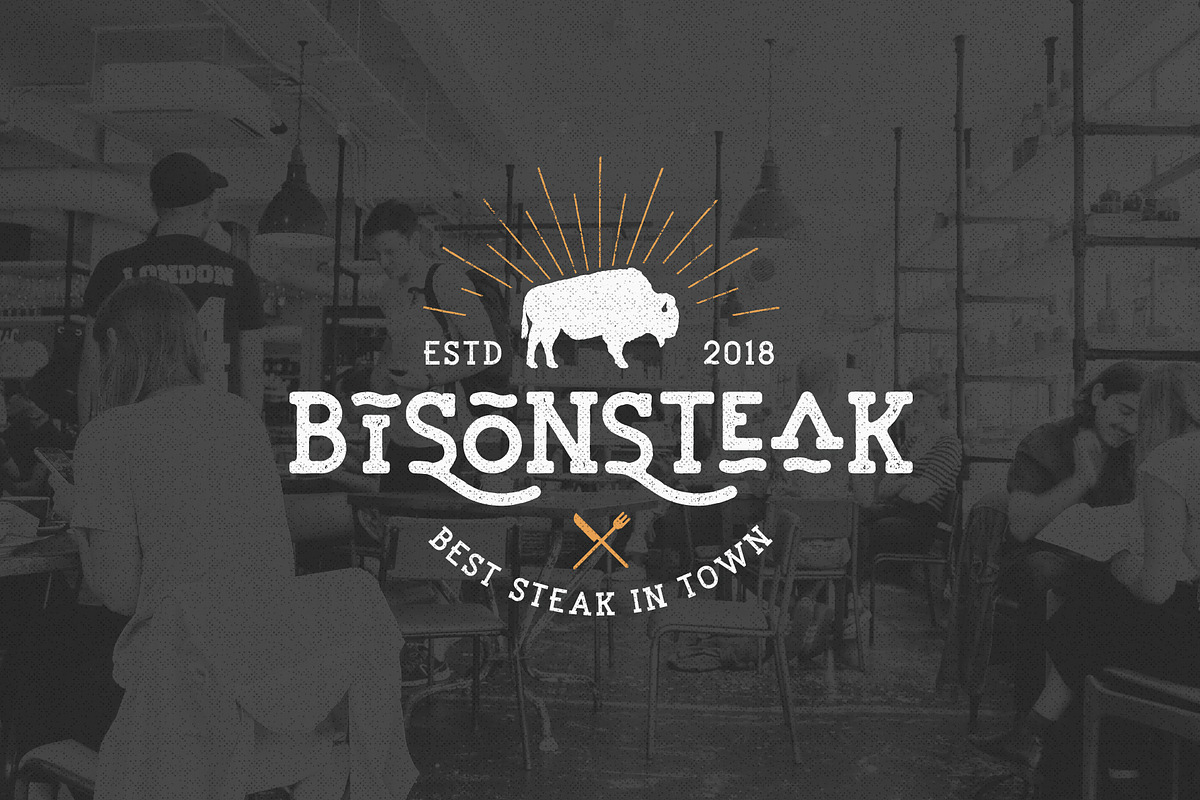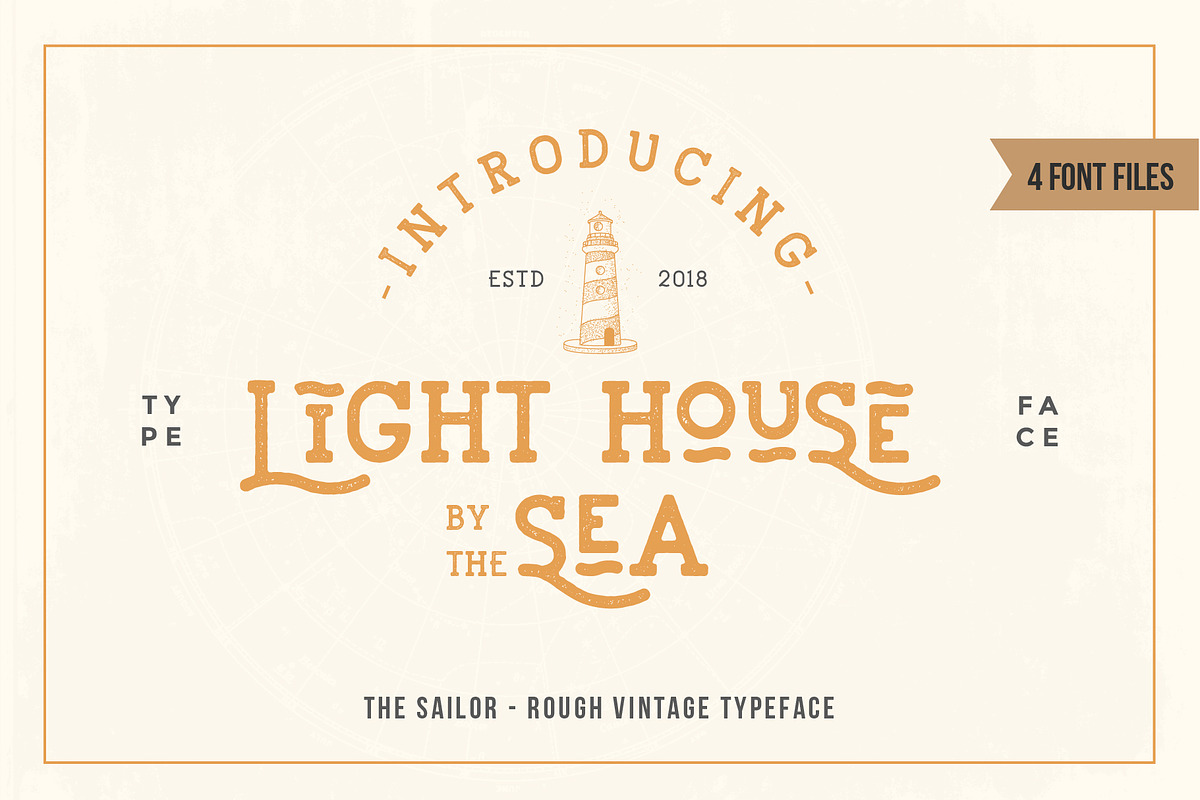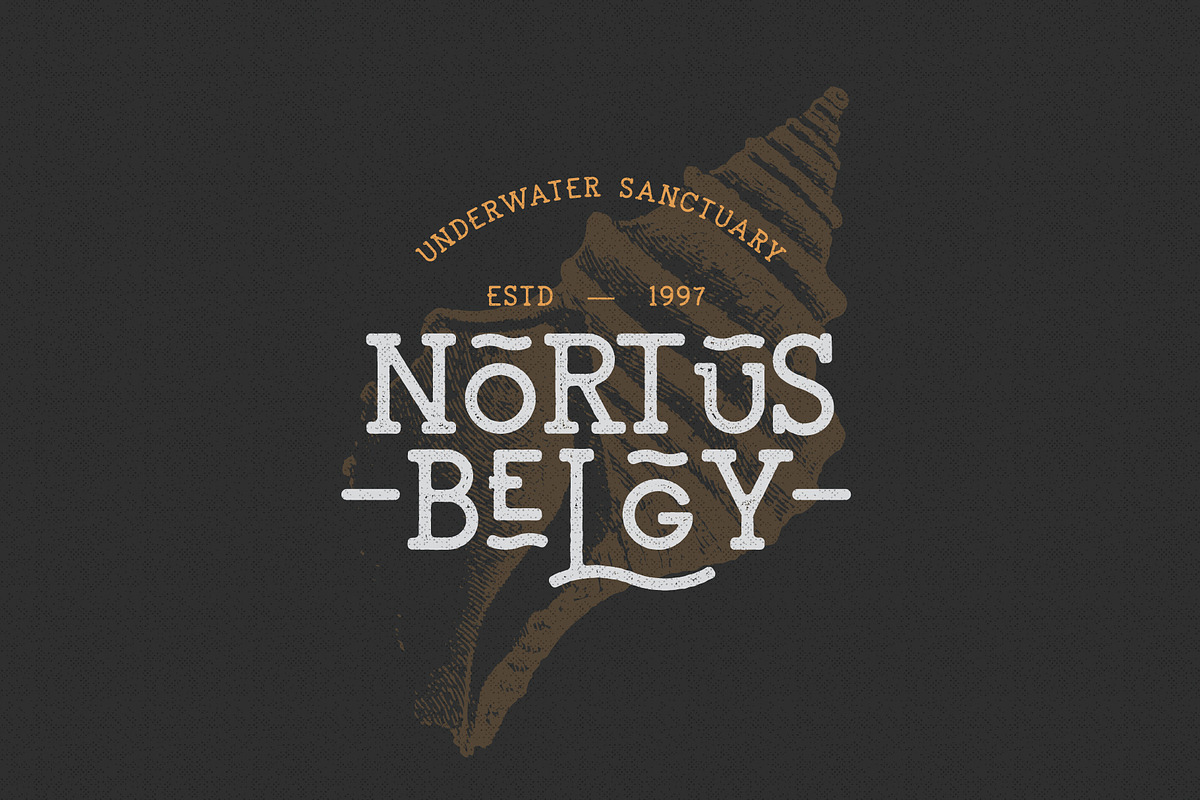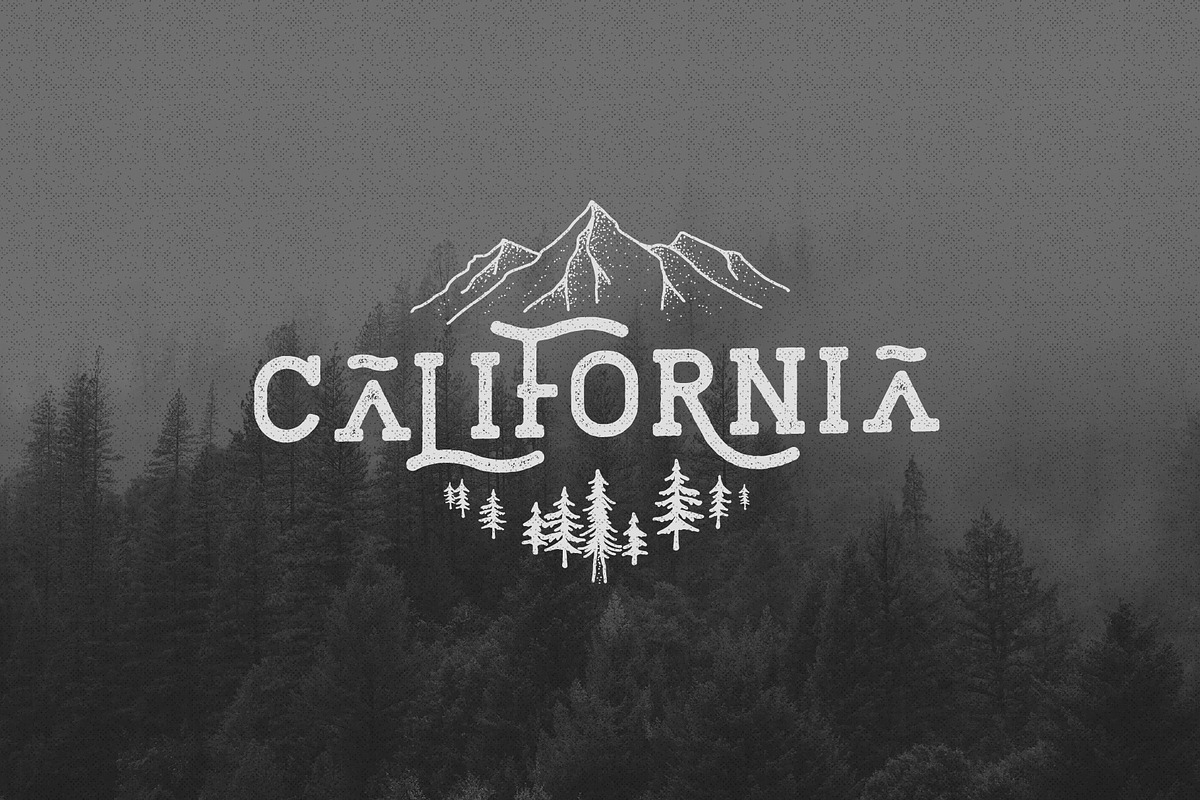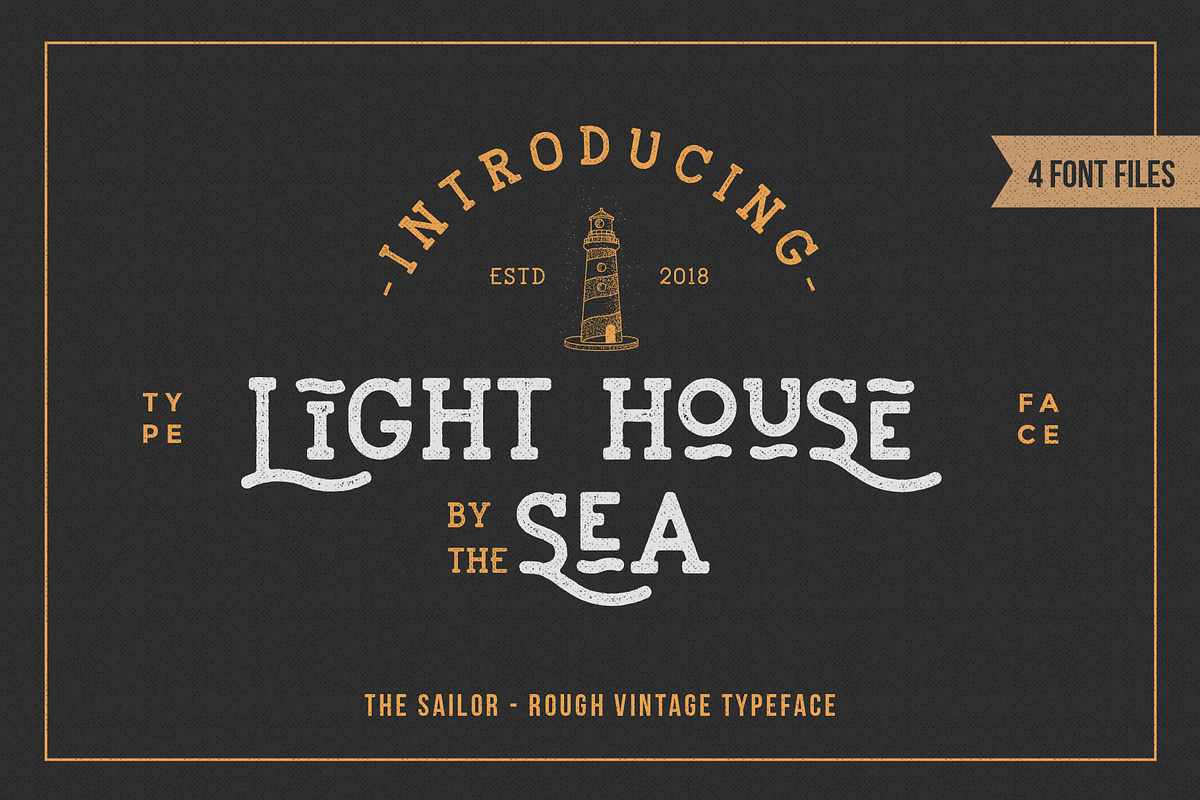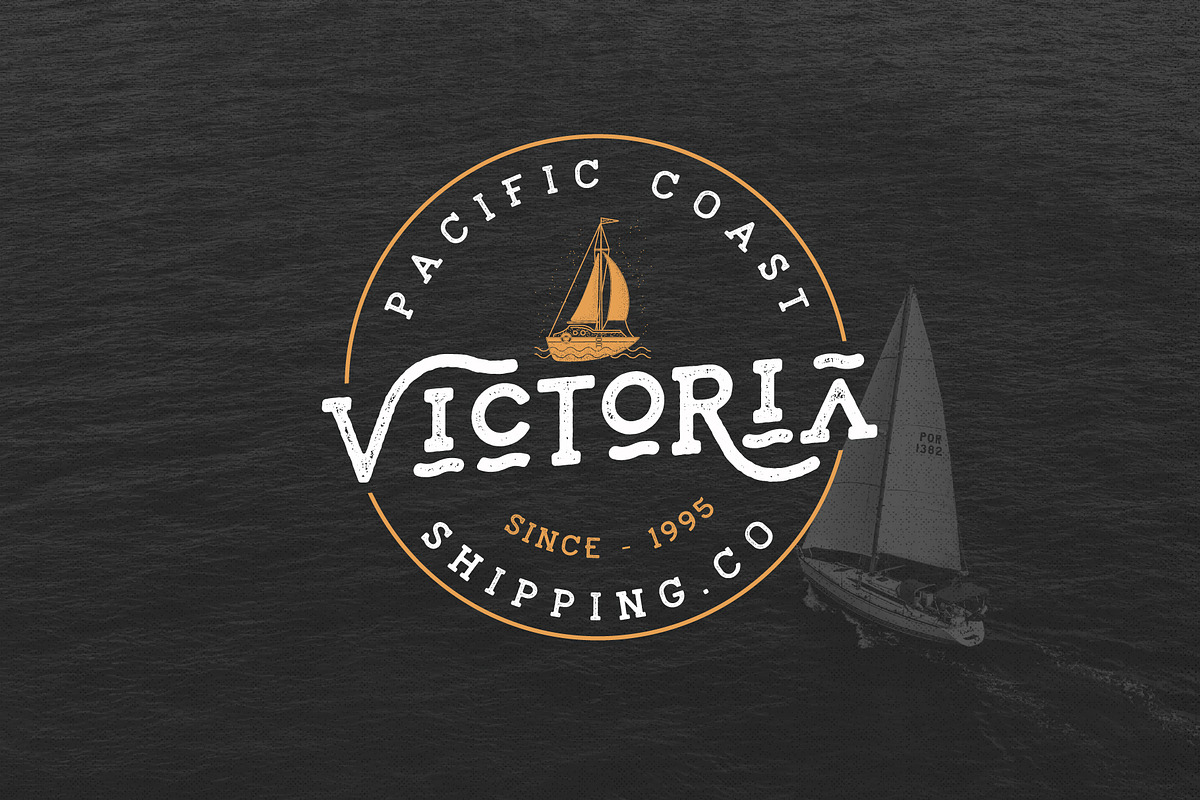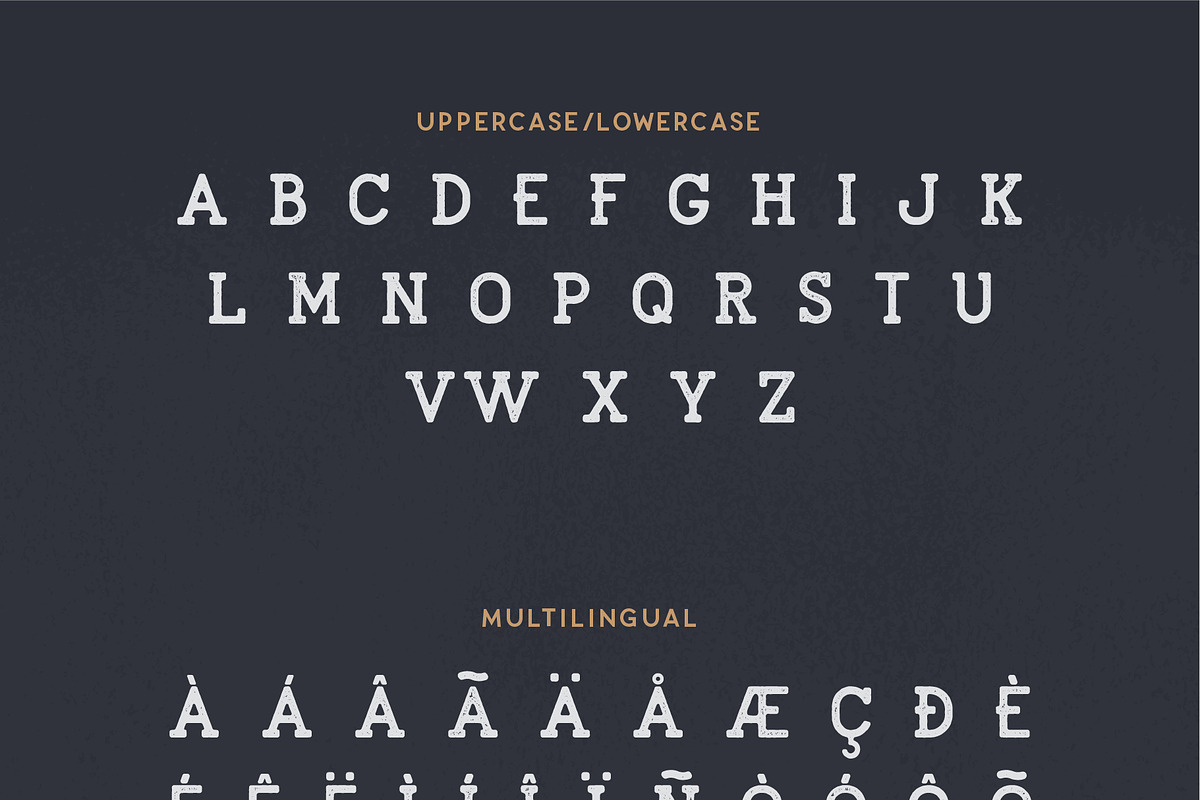
LightHouse - Sailor Rough Typeface
The Sailor Rough Font Collection is textured version of the sailor font. This Rough version comes with Vintage style with Four weight. Made to give you that perfect vintage look for your design. Perfect for Logos, Advertising, Apparel Design, Labels, Signage, Etc. It also contains an uppercase alphabet with alternative character, numbers and symbols.
Multiple Language supported